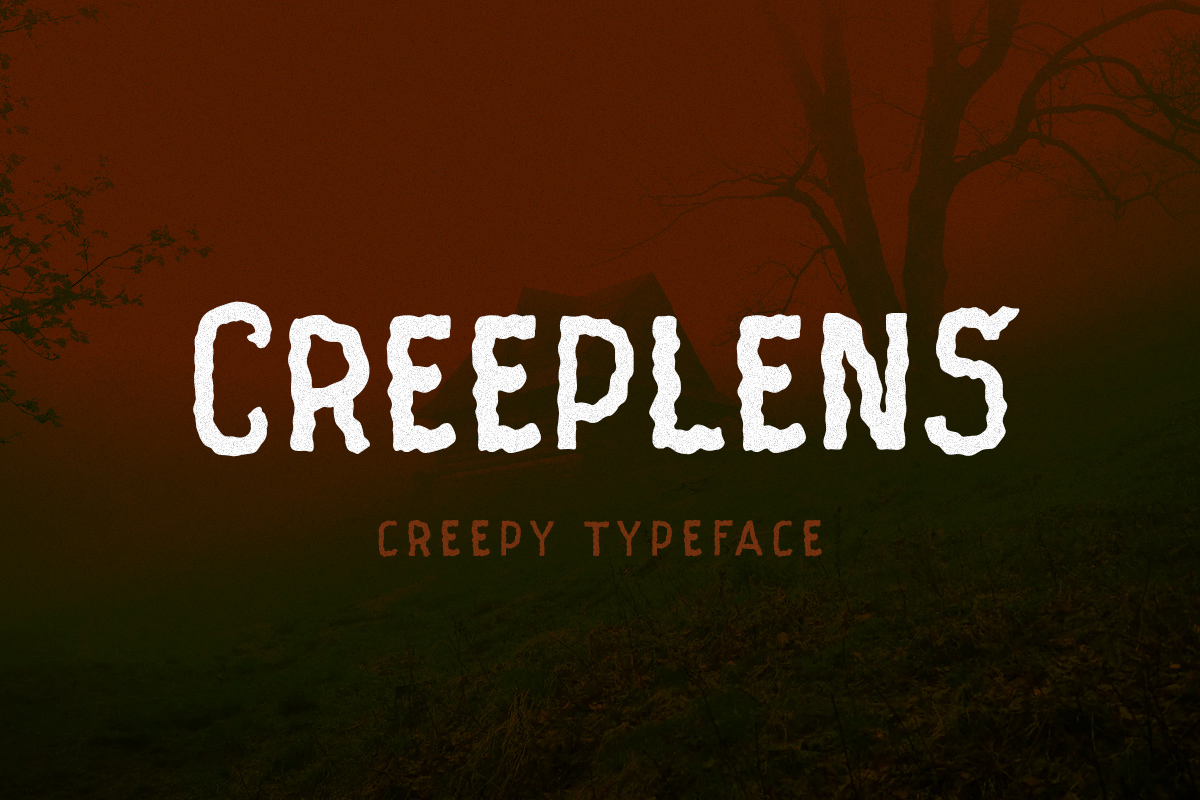
Creeplens Font
Perfect for horror movie titles, Halloween posters, spooky invitations, game graphics, and eerie social media designs.
The Creeplens Font excites designers with its chilling, distorted letterforms and haunting atmosphere that instantly set a creepy, mysterious tone for any project.
The Creeplens Font Free Download is a horror-inspired display typeface created to send shivers down the viewer’s spine. With jagged edges, uneven strokes, and unsettling shapes, it captures the essence of fear and suspense—ideal for projects in the horror, mystery, or thriller genres.
One of the key strengths of Creeplens Font is its immersive personality. It doesn’t just display text—it transforms words into a visual experience that enhances the theme of your design. Despite its eerie style, it remains legible enough for impactful headlines and promotional materials.
In branding, Creeplens communicates mystery, tension, and dark creativity. It works perfectly with shadowy backgrounds, blood-red accents, and gritty textures to create a spine-chilling visual identity.
For digital projects, this font is perfect for horror-themed websites, game UI elements, YouTube thumbnails, and seasonal campaigns like Halloween. Its unique style ensures your content grabs attention in an unforgettable way.